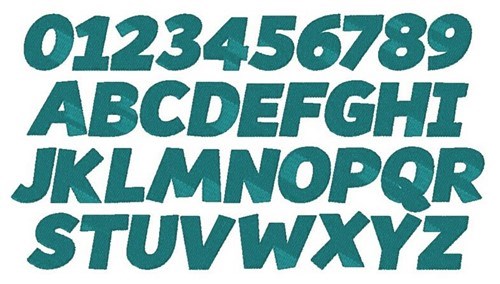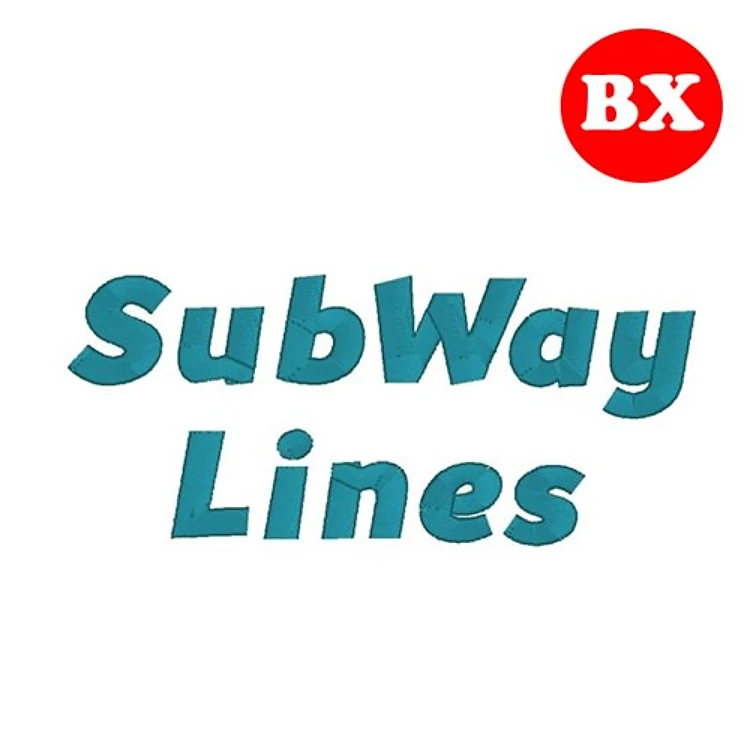
Unicorn Creatives is happy to present Subway Lines Embrilliance - Bold Playful Style - BX font machine embroidery font which has Playful machine embroidery font with bold, rounded letterforms, perfect for casual designs on hoodies or tote bags. Offered in Embrilliance BX formats. included. If you would like to view more embroidery fonts and alphabets please search our embroidery fonts page.
Subway Lines Embrilliance - Bold Playful Style - BX font